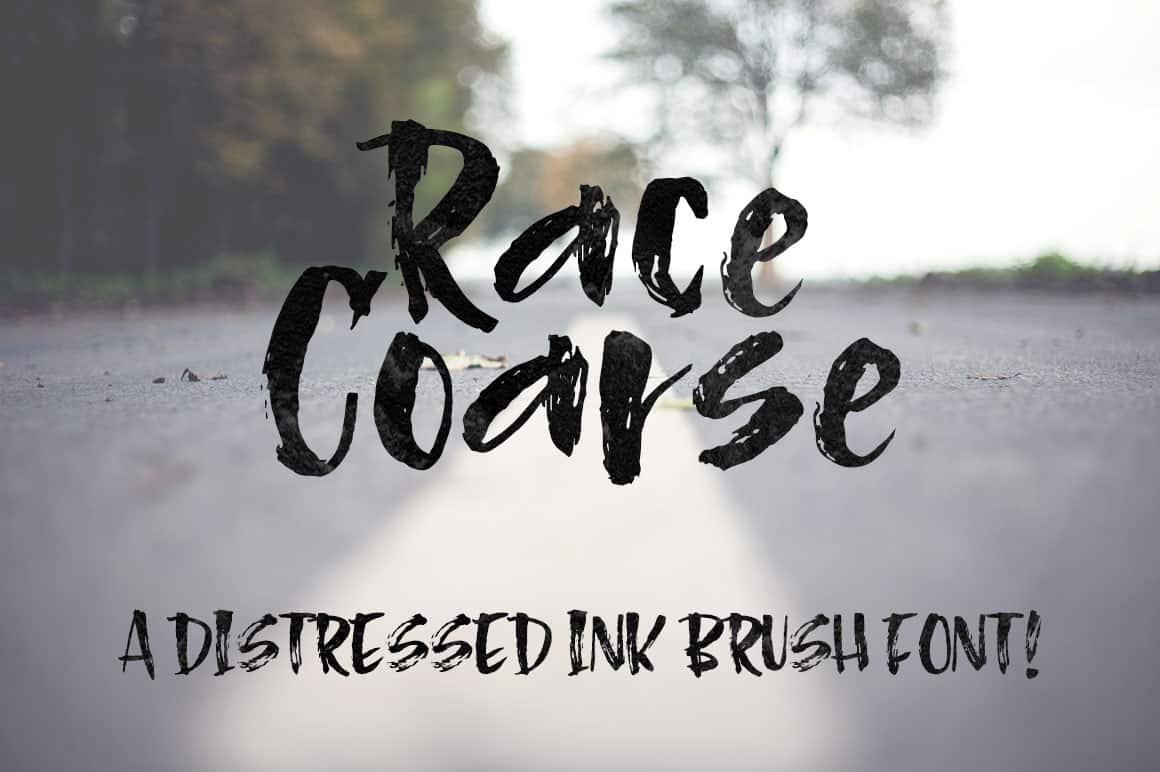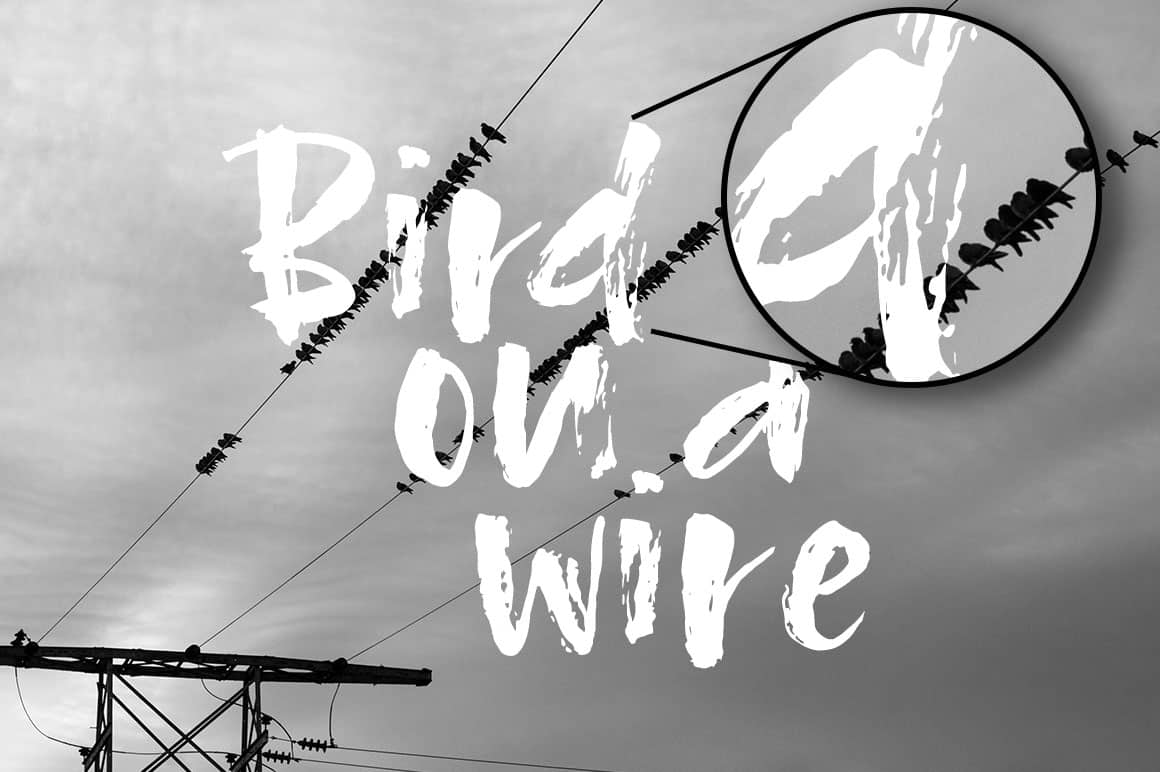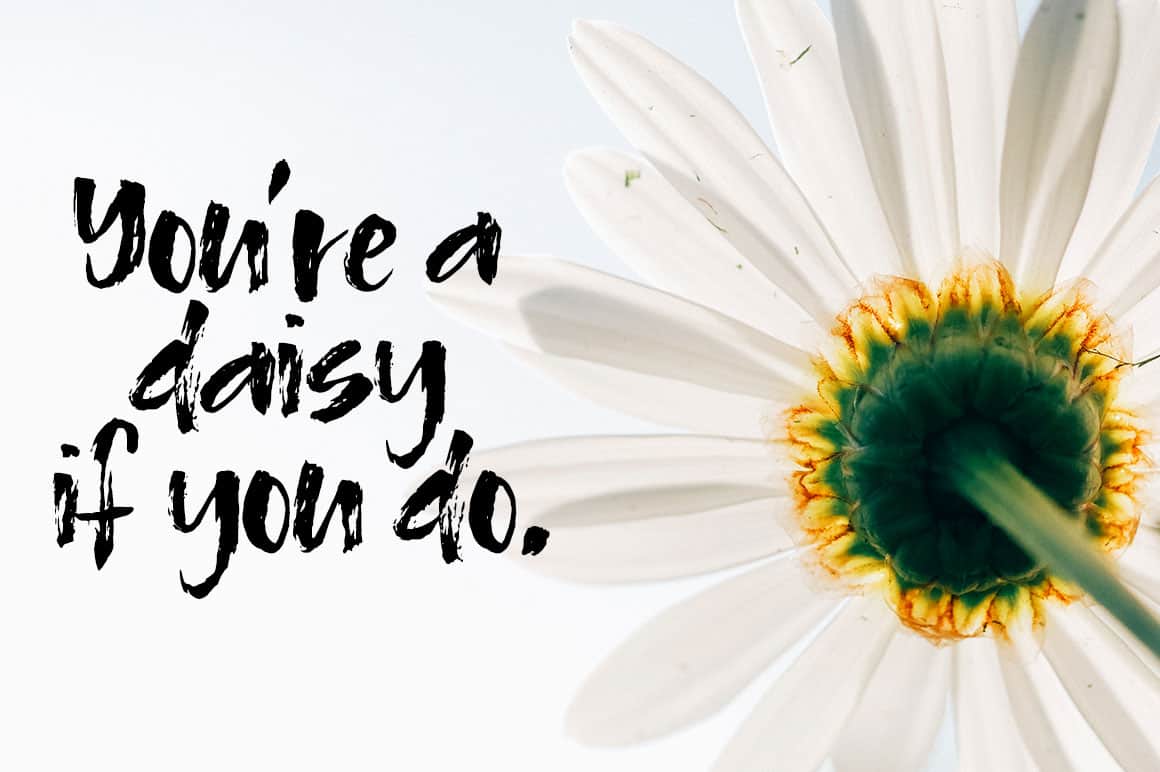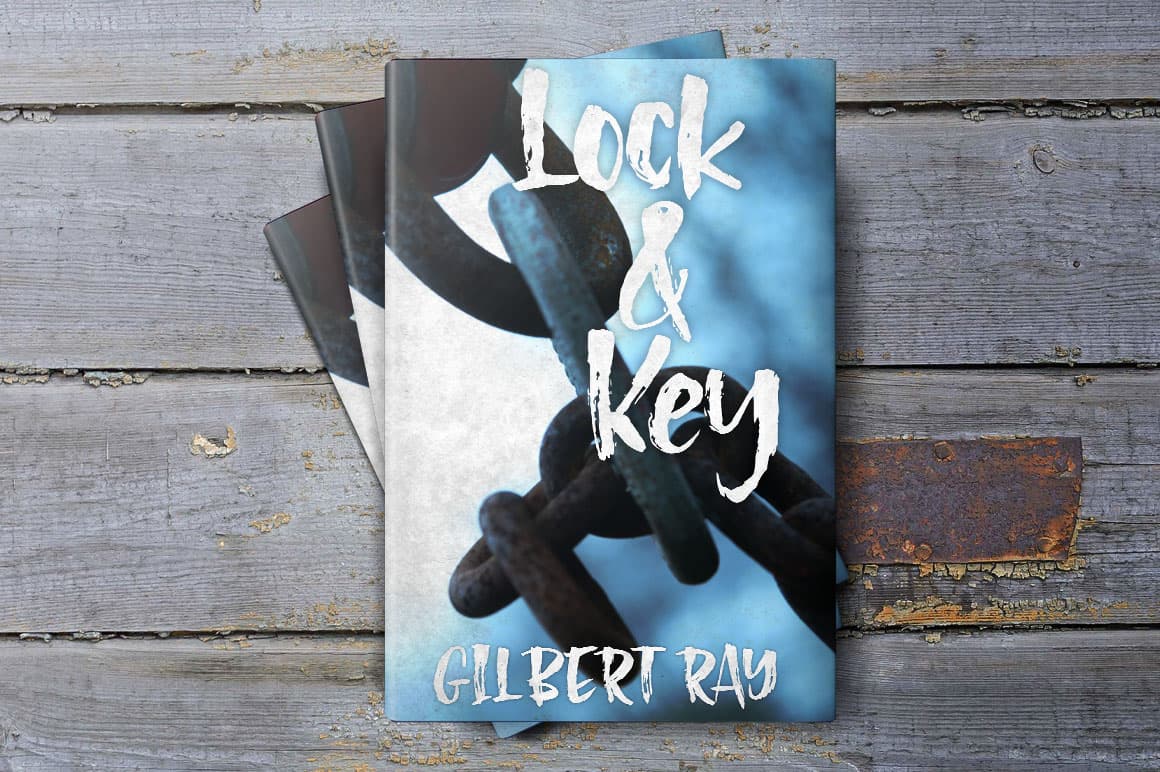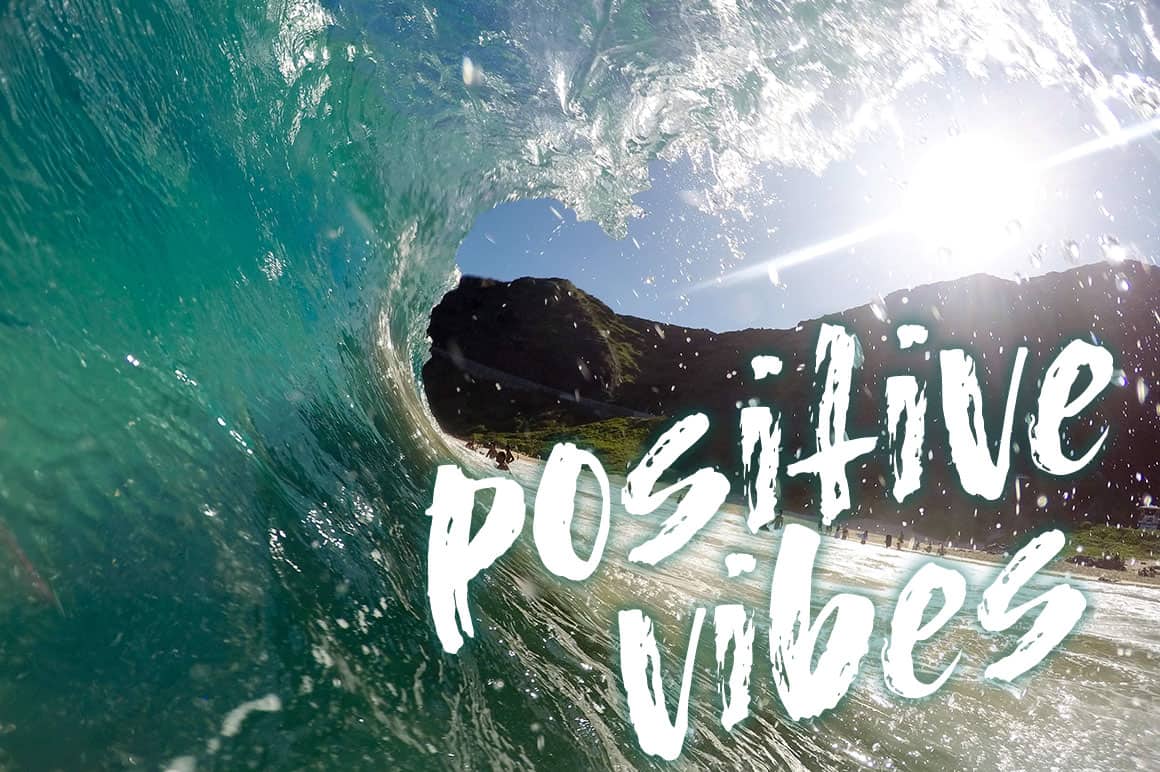
Race Coarse
Race Coarse started its life handwritten with ink on paper, then vectorized with an eye to keeping the jagged edges and streaky bits.
Looking for something a little rough and coarse? Check out Race Coarse!
This font was hand-written with ink on paper, then got vectorized with an eye to keeping the jagged edges and ink streaks. It’s great for when you want a font that’s a little rougher, but still upright and easy to read.